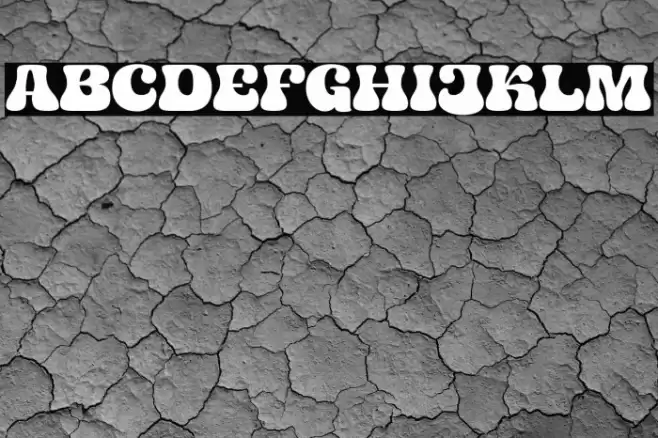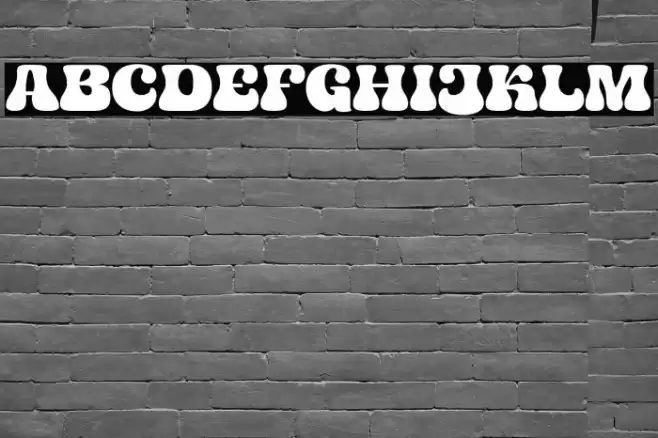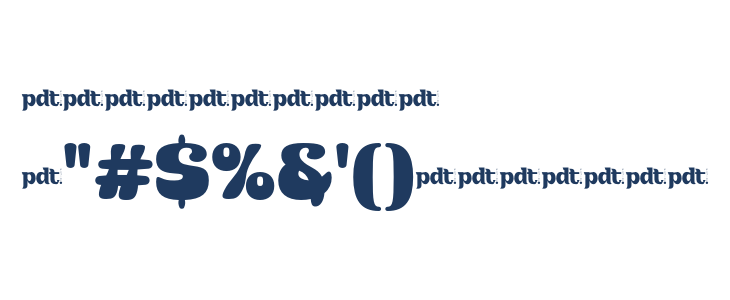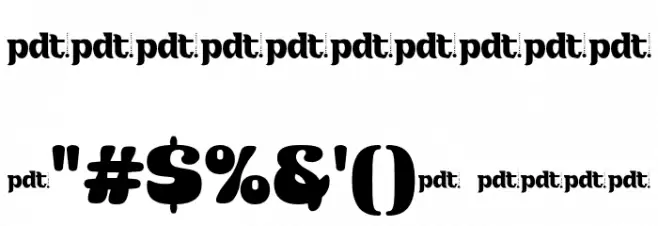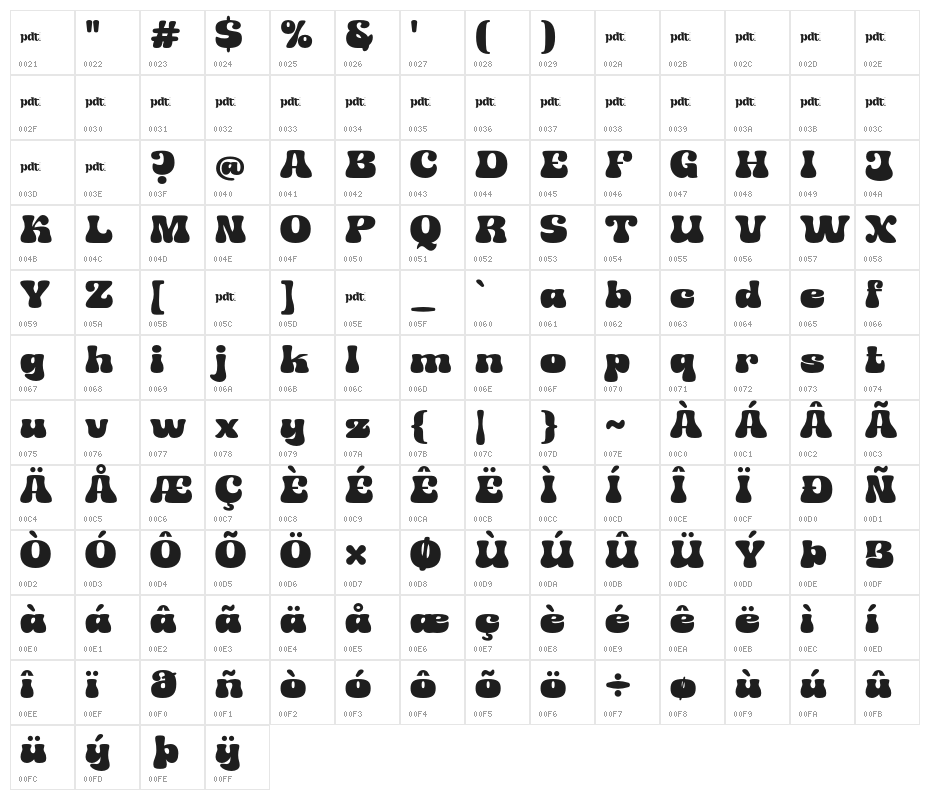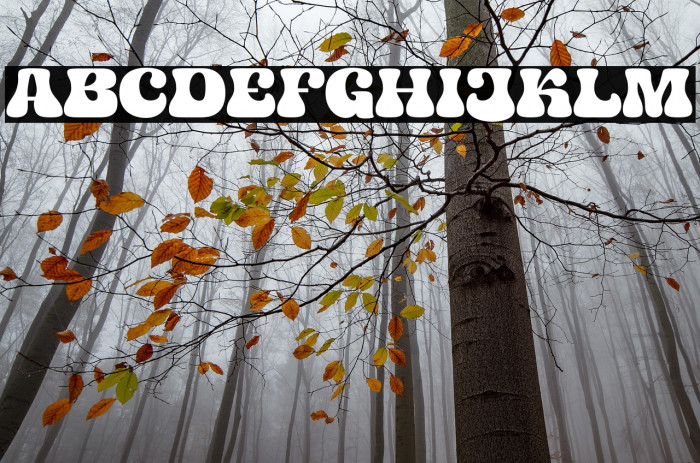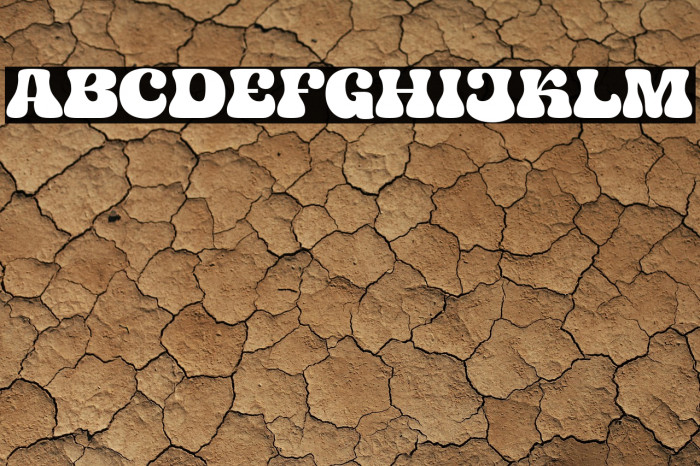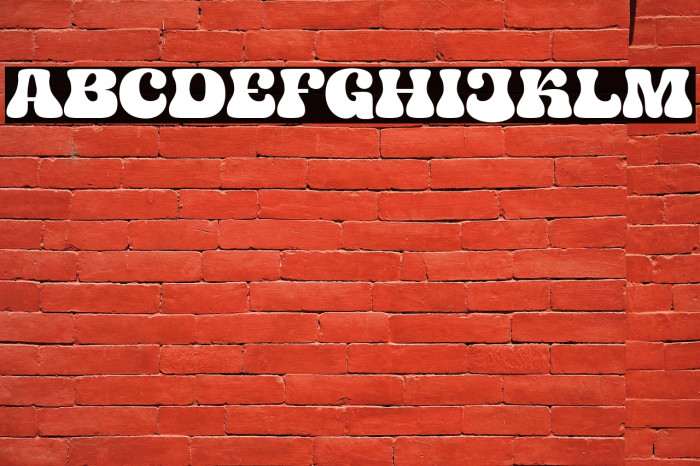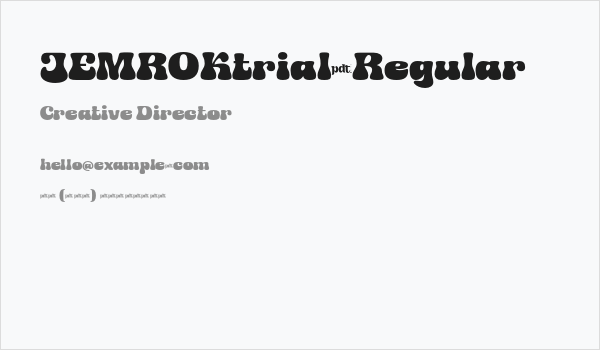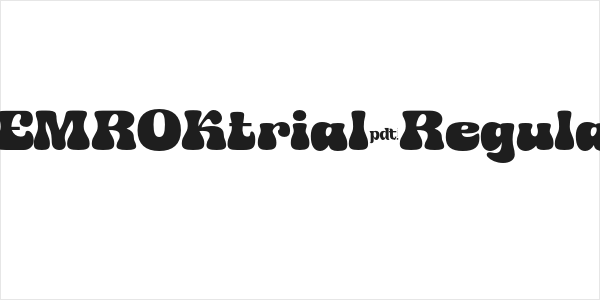
JEMROKtrial-Regular Font
JEMROKtrial-Regular Description
This font features a bold and playful design with a distinct retro vibe. The characters are thick and rounded, giving them a bubbly appearance that is both eye-catching and fun. The uppercase and lowercase letters maintain a consistent style, with exaggerated curves and a slightly condensed form. The numbers and special characters follow the same playful aesthetic, making the font suitable for creative and informal projects. Its unique style is reminiscent of 1970s design, making it ideal for projects that aim to capture a vintage or nostalgic feel.
A bold, playful font with a retro, bubbly design from Uncategorized fonts.
- Proposed Projects: Ideal for posters, retro-themed designs, children's books, and playful branding.
- Overall Style: Vintage